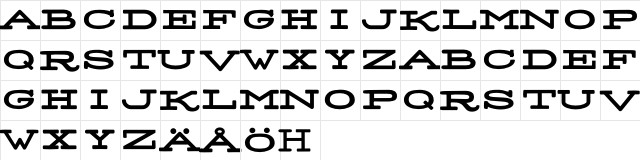
LHF Pullman Train Regular Free Font
LHF Pullman Train Regular
Foundry: John Studden for Letterhead Fonts
Design Context for LHF Pullman Train
LHF Pullman Train is a composed and adaptable typeface that performs quietly and consistently across a wide range of design contexts.
Who designed the LHF Pullman Train Regular font?
This font was published by John Studden for Letterhead Fonts. Check the technical specs section for copyright and designer details.